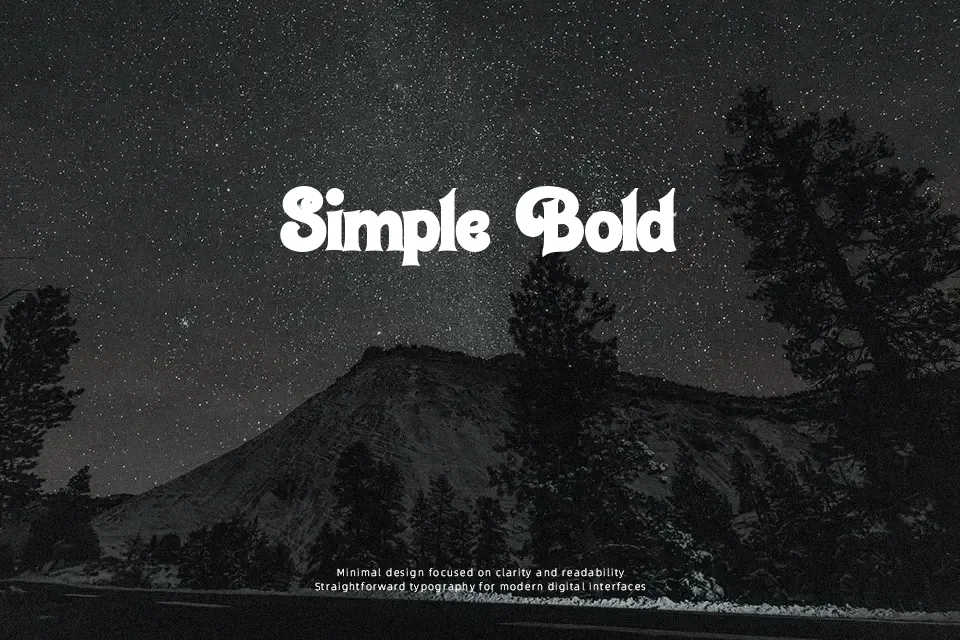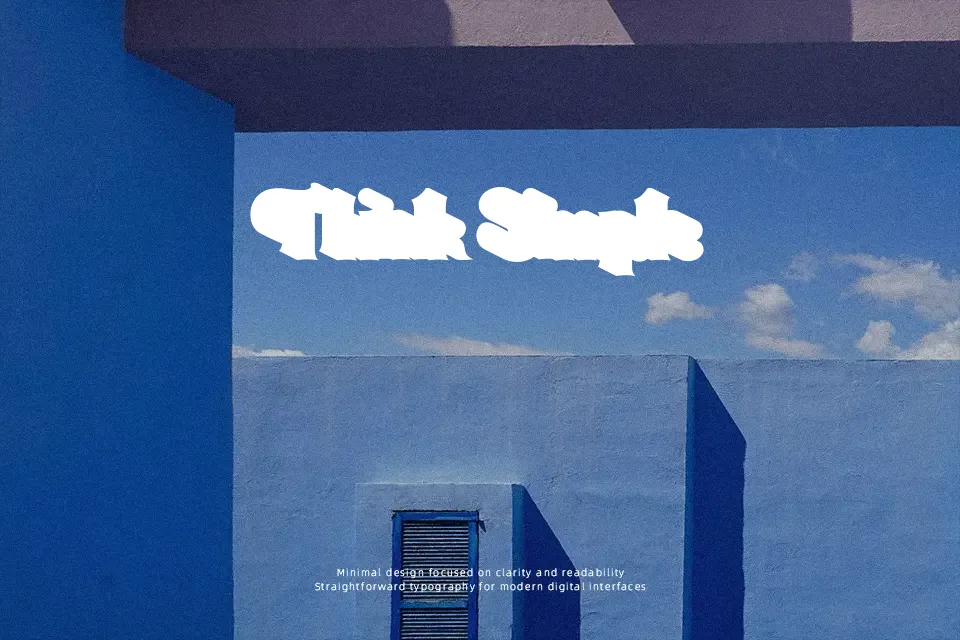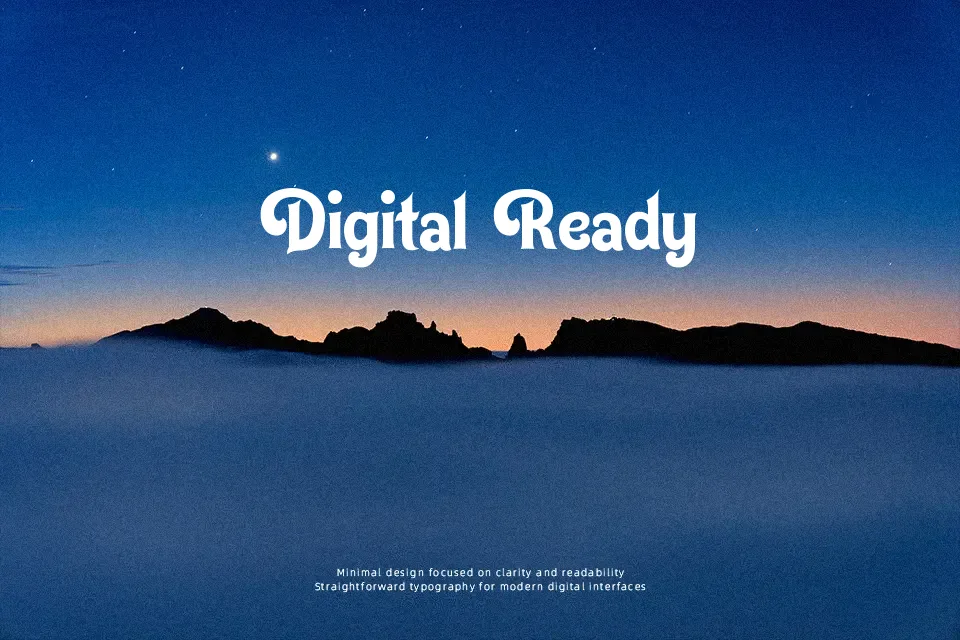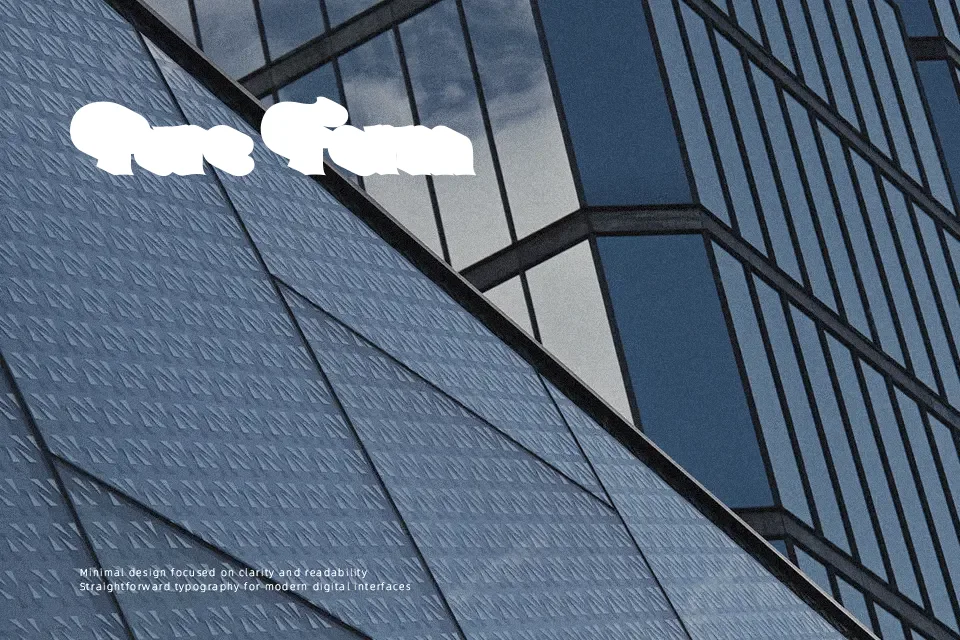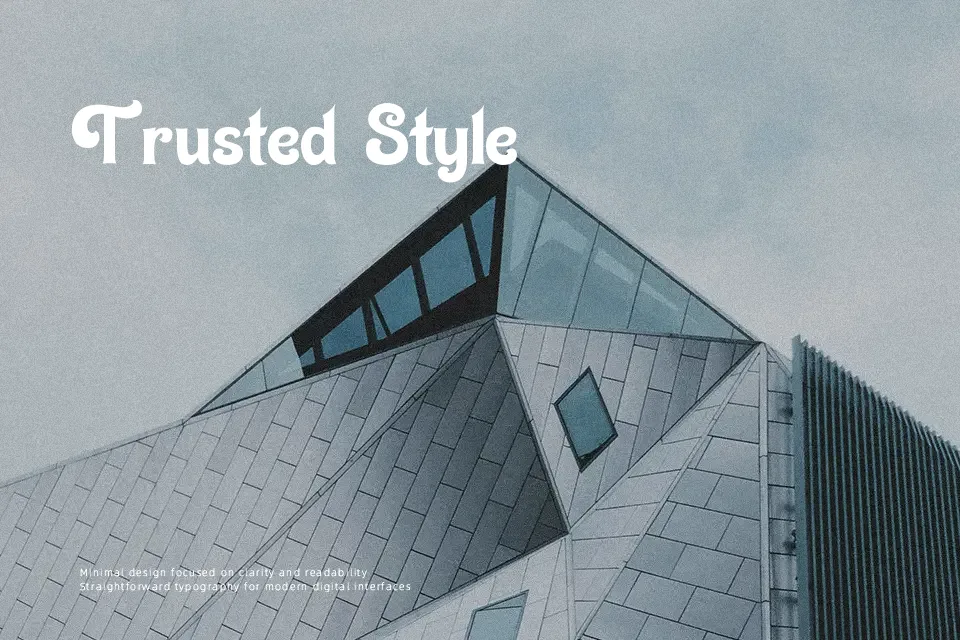
Boogie Boys Font
Designed by Onne Hermawan
Boogie Boys is a retro display serif with thick, rounded strokes, generous curves, and lively swashes that create a bouncy, almost hand-lettered silhouette. Its three-layer construction lets you stack outlines, shadows, and fills for an easy 3D treatment without complex setup. The overall feel is playful and nostalgic rather than polished or corporate, so it shines on expressive projects like event posters, t‑shirt graphics, stickers, and youth‑oriented branding where personality matters more than restraint. For long paragraphs, small interfaces, or serious editorial layouts, the busy shapes quickly become tiring, so it is better kept for short, punchy headlines and hero text instead.
Bold retro event posters and flyers
Playful t‑shirt, sticker, and merch graphics
Youthful branding and logo wordmarks with 70s character
Body text or long reading layouts
Serious corporate or minimalist branding systems
Small UI labels or dense data-heavy editorial pages
Perfect for branding, kids, and logo, with a creative and decorative style.